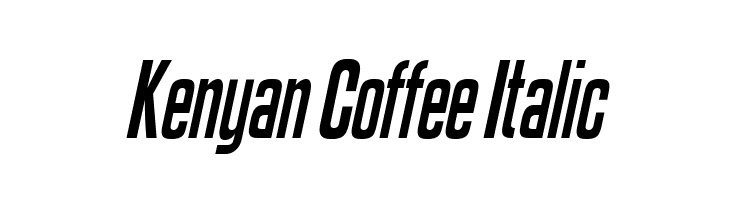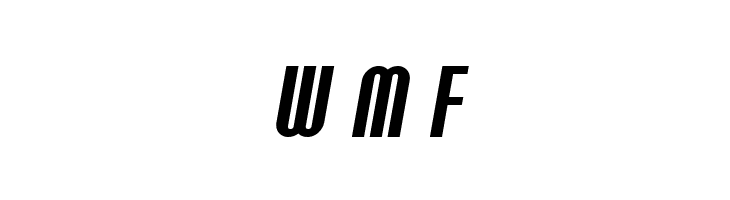
A bold, geometric font with a futuristic and angular design.
今のトップフォントは?
は、クリーンな造形と広い適用範囲で支持を集めています。 ブランディングからランディングページ、ポスターまで活躍します。
ロゴで人気のフォントは?
幾何学系の サンセリフ(例: Poppins、Gotham 系のファミリー)は、スケーラブルでクリーンな印象に最適。 親しみやすさを出すなら スクリプト や手書き系も定番です。 見出しは力強く、本文はニュートラルに──この組み合わせが認知とバランスを高めます。
人気リストはどのくらいの頻度で更新される?
ダウンロード数やエンゲージメントに基づき定期的に更新します。 こまめにチェックして、次に流行るフォントを先取りしましょう。